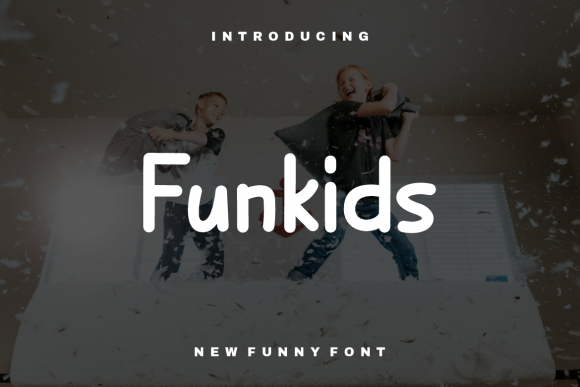
Welcome to the world of FunKids Font – Where Imagination Embarks on a Joyous Adventure!
In a world where creativity flows like a whimsical river, FunKids Font emerges as a beacon of inspiration, guiding you on a delightful journey through the realms of imagination. This meticulously crafted handwritten font, born from the creative mind of alonkelakon, is a symphony of strokes that dances upon the page, evoking a sense of wonder and joy that will leave you spellbound.
Designed with meticulous attention to detail, FunKids Font embodies the essence of carefree childhood, capturing the essence of youthful enthusiasm and boundless imagination. Each letter, a masterpiece in its own right, exudes a playful charm that dances off the screen, inviting you to embark on a whimsical adventure.
With its effortless elegance and playful spirit, FunKids Font effortlessly transforms ordinary into extraordinary. Its carefully crafted curves and whimsical strokes create a uniquely expressive font that adds a touch of magic to your creative endeavors. Whether you're designing logos, crafting invitations, or creating social media posts, FunKids Font is your passport to a world where imagination knows no bounds.
Whether you're a seasoned designer or a creative explorer just beginning your journey, FunKids Font is your trusty companion, ready to ignite your creativity and bring your vision to life. Immerse yourself in a world where colors dance, shapes come alive, and stories unfold with every letter you type.
So, set sail on an adventure with FunKids Font today, and let your imagination soar to new heights! Experience the joy of creation, the thrill of expression, and the boundless possibilities that await you in this enchanting world of limitless creativity.